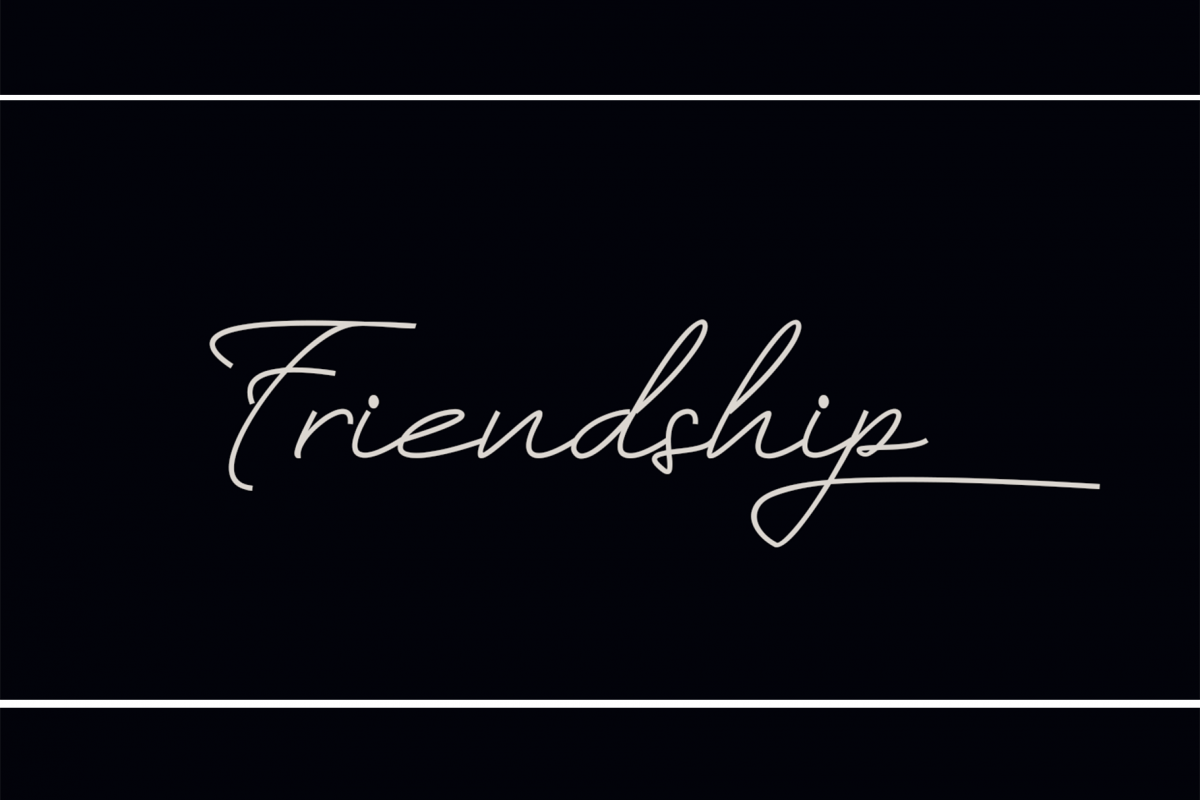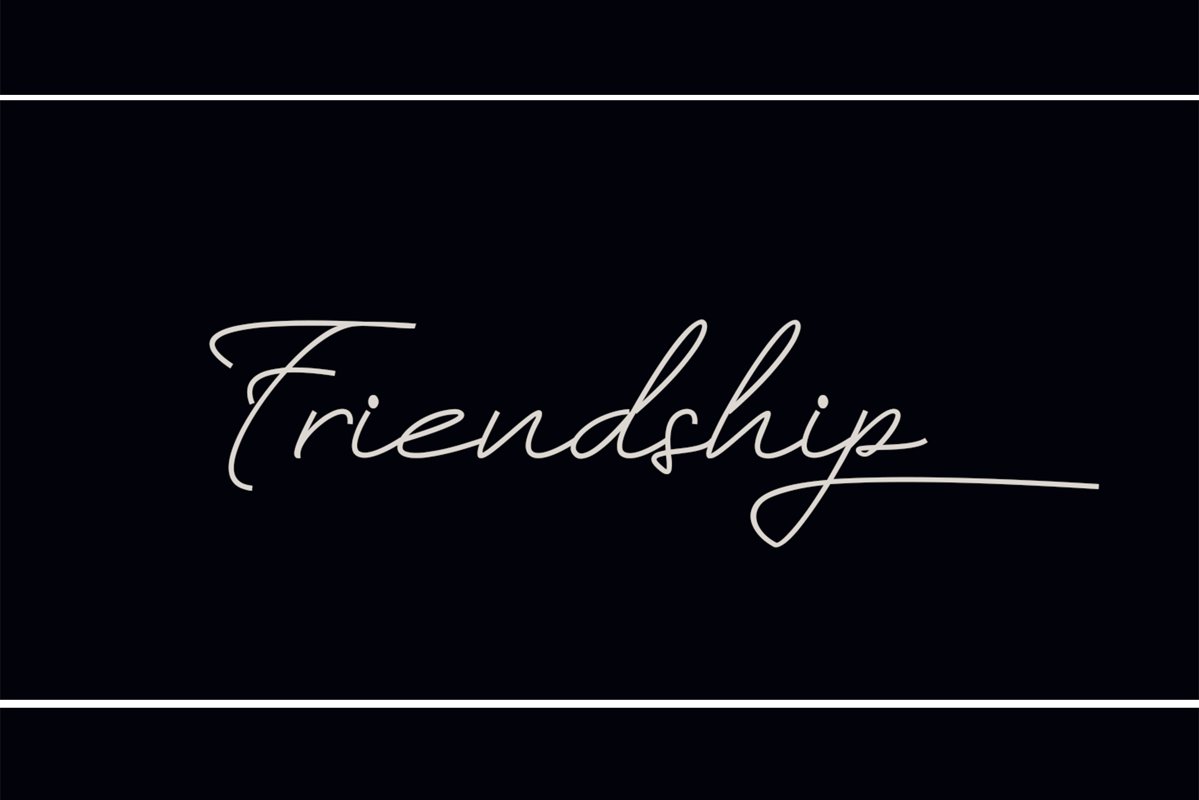
Friendship
Friendship font is a simple font with a natural style but extraordinary for use on letters, social media posts, instagram, magazines, watermarks on photography, quotes, album covers, logos, business cards, and many other design project.
Friendship font easy to use accompanied by several lowercase alternatives that seem elegant and luxurious,